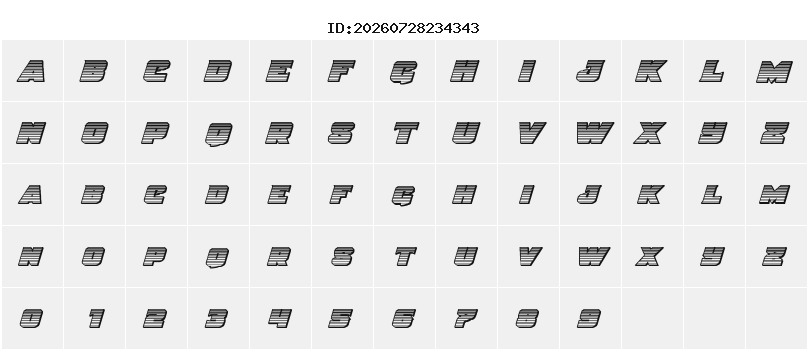
Justice Gradient Outline Preview
• Font Name: Justice Gradient Outline
• Font Style: Outline
• Full Font Name: Justice Gradient Outline
About Justice Gradient Outline.ttf
Justice Gradient Outline.ttf is a modern, elegant sans-serif font designed for ultimate readability and visual harmony. Perfect for branding, headlines, web design, and print materials.